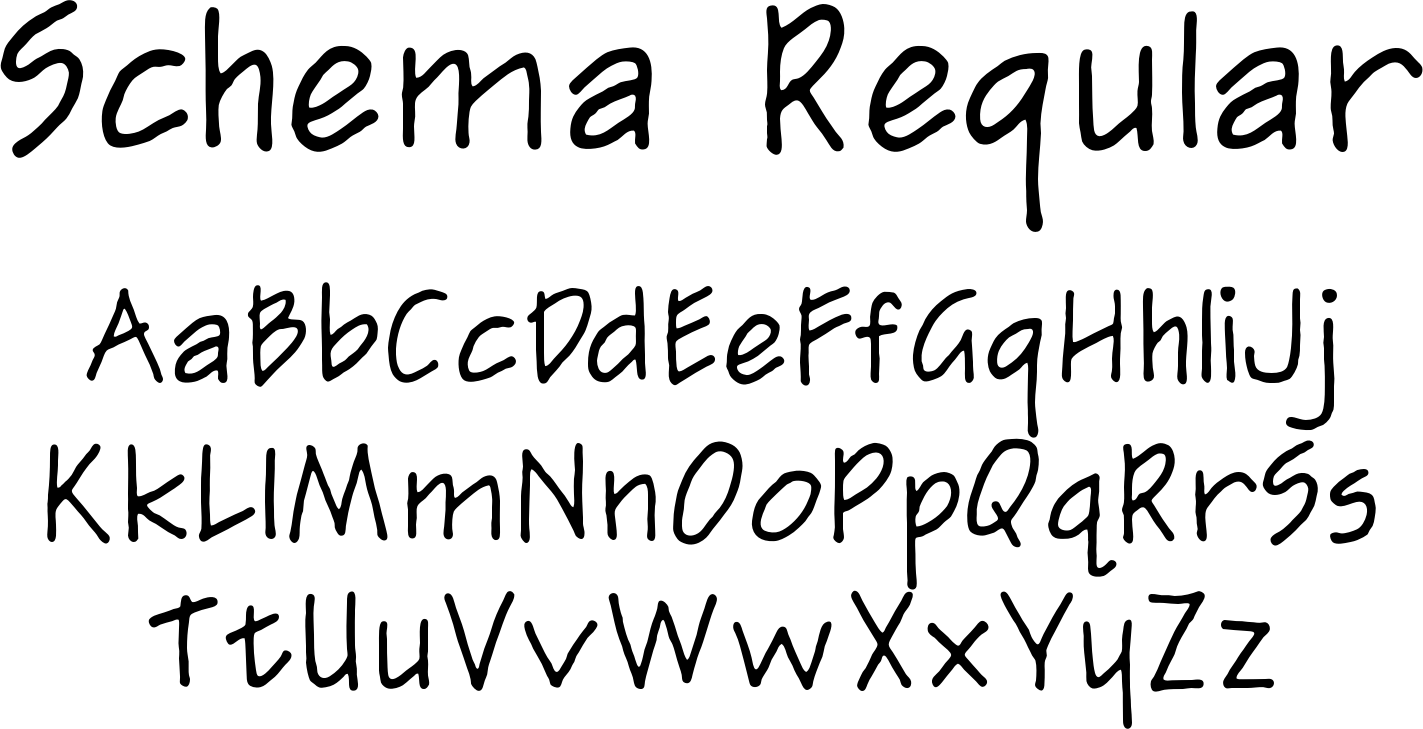
Architectural Style Fonts. And a focus on integrating architecture into the. Permalink to these settings ×.
And a focus on integrating architecture into the. Onlinewebfonts.com is internet most popular font online download website,offers more than 8,000,000 desktop and web font products for you to preview and download. This is particularly relevant when a project is publically presented and on show, or for competitions and critiques where the work presented is assessed without its author present.the go to architectural font
Popular Choices For Architecture Portfolios Include Helvetica, Futura And Century Gothic.
[complete list of architectural fonts here] the architect bold font was created by wayne thompson, he wanted to emulate that particular style of hand lettering that architects seem to have. 6 popular font styles (+ best free fonts for each) if you’re new to design, it’s important to get a basic understanding of different types of fonts and how to use them. Modern architecture refers to the style of architecture that flourished in the early to mid 20th century.
Press ctrl+c/cmd+c to copy and esc to close this dialog. Architects have always wanted their cad drawings to look more like they were drawn by hand, rather than by a cad program. We have 62 free architect fonts to offer for direct downloading · 1001 fonts is your favorite site for free fonts since 2001
It Is A Handwriting Font Created In 1992 And Has Been Downloaded 168,182 Times.
Click to find the best 23 free fonts in the architecture style. Enter custom sample text to change the font previews below. In fact, these fonts are inspired by the draft design that architects use for buildings.